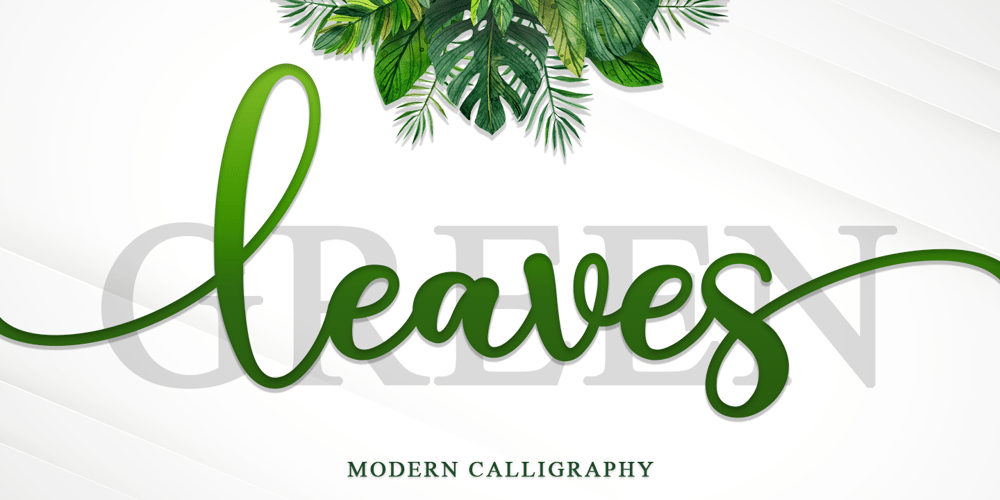
Green Leaves
Green Leaves font
Green Leaves Font Family was designed by Alif Ryan Zulfikar and published by Sakha Design. Green Leaves contains 1 styles and family package options. Green Leaves is a romantic and sweet handwritten font. It looks astonishing on love letters, greeting cards, logos, business cards, and every other design which needs a personalized touch.This font is PUA encoded which means you can access all of the glyphs and swashes with ease!